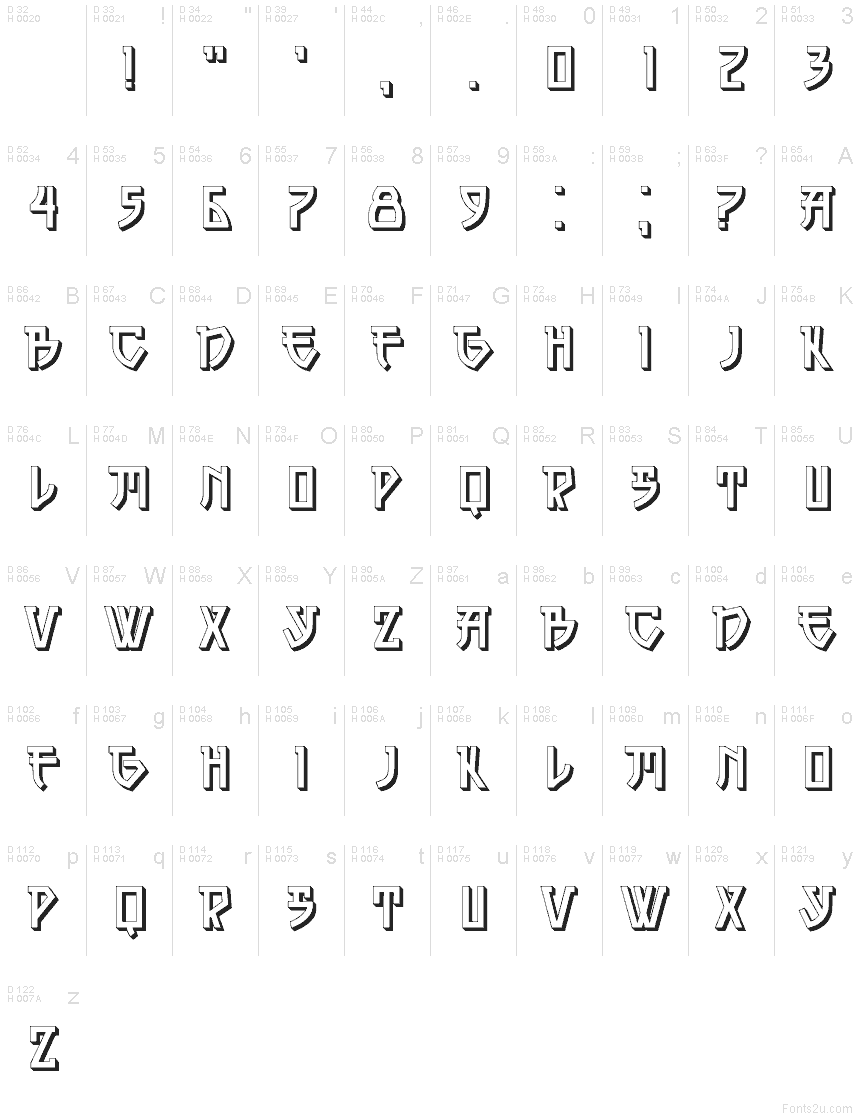
Kurosawa 3D Regular
Kurosawa 3D font by Vladimir Nikolic is a free decorative 3D faux Japanese display typeface in the Kurosawa family, built to grab attention with bold, carved-letter forms. The thick, blocky strokes and beveled shadowing give each word the weight of a title card, like signage lit by a sharp studio spotlight. Angular cuts and tight spacing push the letters together into a compact, energetic wordmark that reads clearly even at a glance.
Using Kurosawa 3D, you can brand game titles, anime or manga covers, martial-arts event posters, restaurant signage, streetwear graphics, and retro movie artwork with instant character. This free font shines when it’s set large and given room to breathe; pair it with a simple, neutral sans serif for body copy so the bold 3D forms stay center stage.